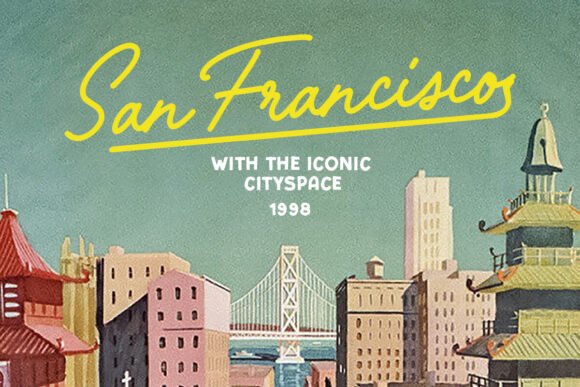
Vintage Postman Font: A Timeless Addition to Your Design
The world of typography is vast and diverse, offering a multitude of font styles to suit every design need. Among these, vintage fonts hold a special place, evoking a sense of nostalgia and timelessness. One such font that has gained popularity among designers is the Vintage Postman Font. This article will delve into the features, benefits, and uses of the Vintage Postman Font, exploring how it can elevate your design projects.
Introducing Vintage Postman Font
Vintage Postman is a handmade font duo that consists of a bold sans and monoline script. This unique combination allows designers to add a touch of retro and old vibes to their work, making it perfect for projects that require a classic feel. The font duo is versatile and can be used for various purposes, including posters, logotypes, quotes, and branding.
Key Features of Vintage Postman Font
- Retro and Old Vibes: The Vintage Postman Font is designed to give your designs a nostalgic feel, making it ideal for projects that require a classic or vintage look.
- Bold Sans and Monoline Script: The font duo offers a bold sans and monoline script, providing flexibility and variety in your designs.
- Alternates, Ligatures, and Lines: The script font comes with alternates, ligatures, and lines that can be used to make your project look more appealing and unique.
- Multi-Language Support: The Vintage Postman Font supports multiple languages, making it a great choice for global brands or projects that require text in different languages.
Design Applications of Vintage Postman Font
The Vintage Postman Font is a versatile font duo that can be used in various design applications. Here are some of the ways you can use this font:
- Posters: Add a touch of nostalgia to your posters with the Vintage Postman Font. Its bold and eye-catching design makes it perfect for posters that require a strong visual impact.
- Logotypes: Create a unique and memorable logotype with the Vintage Postman Font. Its monoline script and bold sans options provide a wide range of design possibilities.
- Quotes: Use the Vintage Postman Font to add a touch of elegance and sophistication to your quotes. Its classic feel makes it perfect for inspirational quotes, advertisements, and social media posts.
- Branding: Establish a strong brand identity with the Vintage Postman Font. Its unique design and nostalgic feel make it perfect for brands that want to stand out from the competition.
Tips and Tricks for Using Vintage Postman Font
Here are some tips and tricks to help you get the most out of the Vintage Postman Font:
- Experiment with Font Combinations: Combine the bold sans and monoline script fonts to create a unique and visually appealing design.
- Use Alternates and Ligatures: Take advantage of the font’s alternates, ligatures, and lines to add a touch of personality to your design.
- Adjust Font Size and Color: Experiment with different font sizes and colors to create a design that stands out.
- Keep it Simple: Don’t overcomplicate your design. The Vintage Postman Font is designed to be simple yet elegant, so keep your design clean and minimal.
Pairing Vintage Postman Font with Other Fonts
Pairing the Vintage Postman Font with other fonts can create a unique and visually appealing design. Here are some font pairing suggestions:
- Serif Fonts: Pair the Vintage Postman Font with serif fonts like Times New Roman or Georgia to create a classic and elegant design.
- Script Fonts: Combine the Vintage Postman Font with other script fonts like Pacifico or Great Vibes to create a playful and whimsical design.
- Display Fonts: Pair the Vintage Postman Font with display fonts like Arial Black or Impact to create a bold and eye-catching design.
The Vintage Postman Font is a versatile and elegant font duo that can add a touch of nostalgia and timelessness to your designs. Its bold sans and monoline script options, alternates, ligatures, and lines make it perfect for a wide range of design applications, from posters and logotypes to quotes and branding. With its multi-language support and simple yet elegant design, the Vintage Postman Font is a great choice for designers looking to create unique and visually appealing designs.